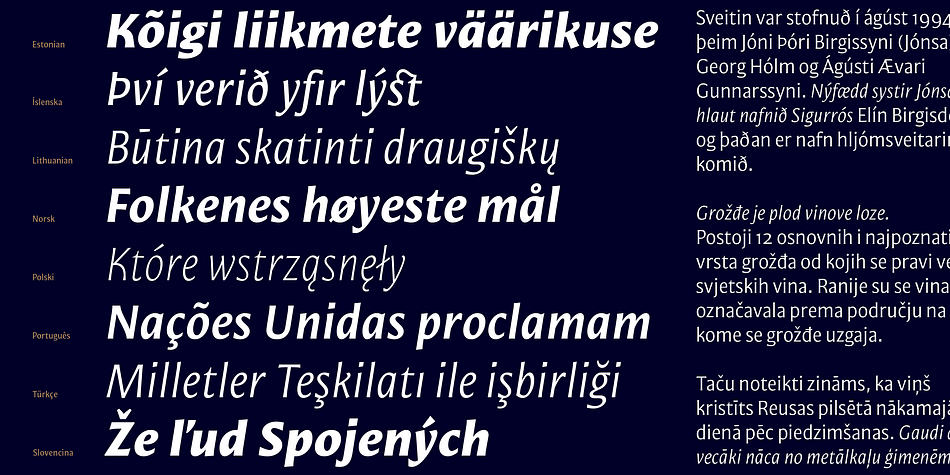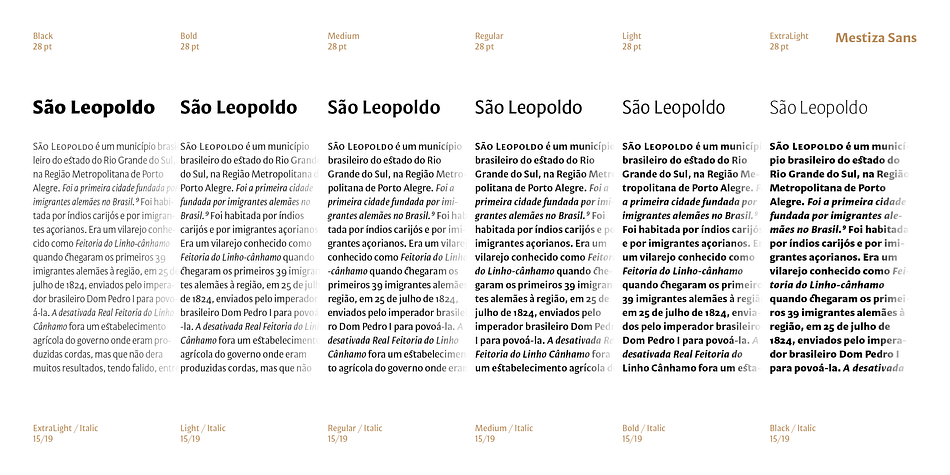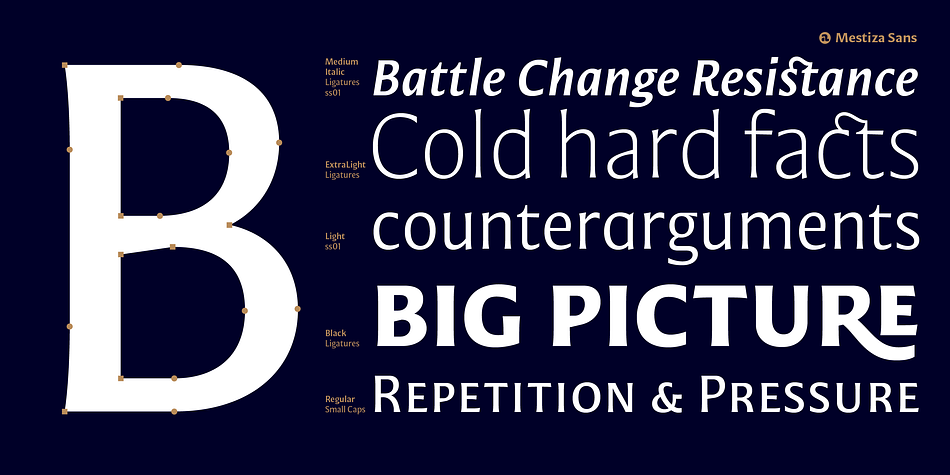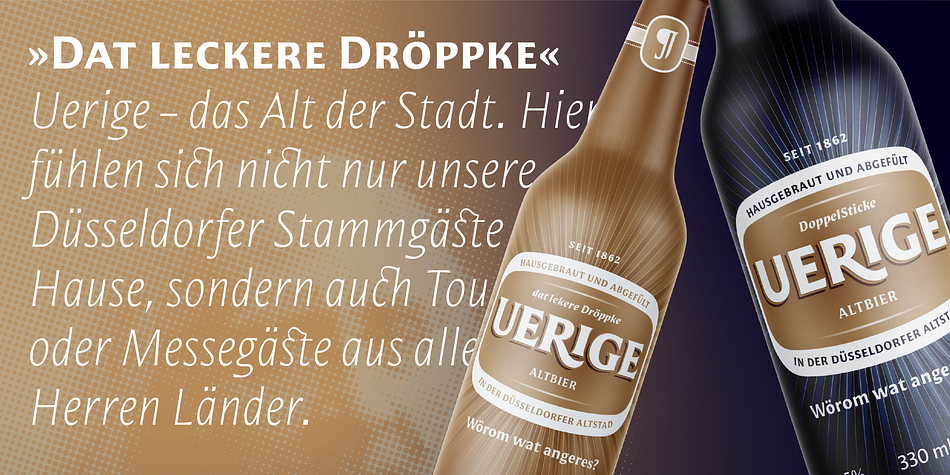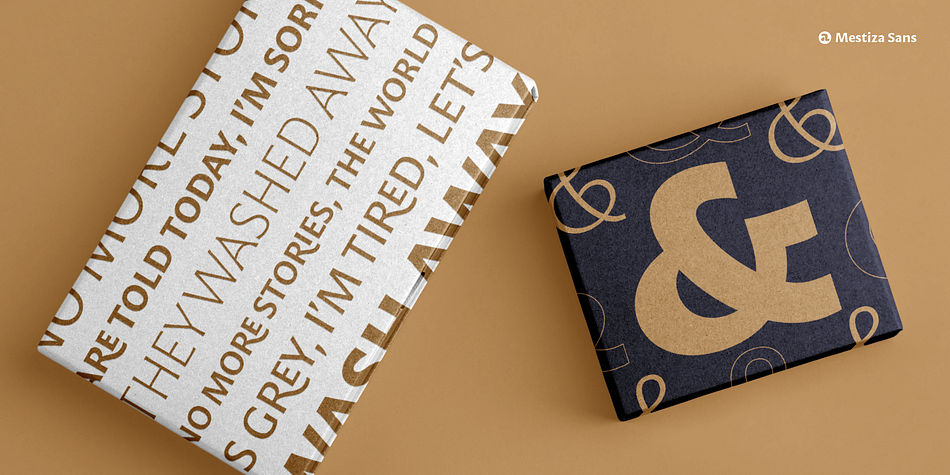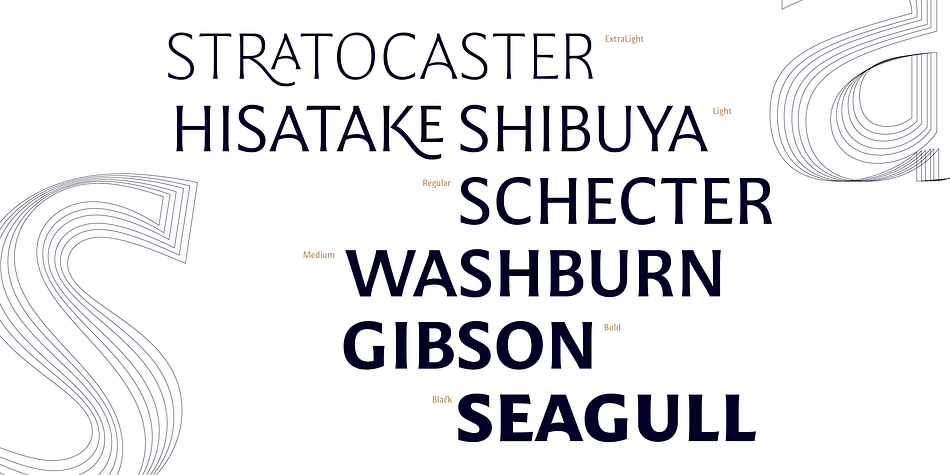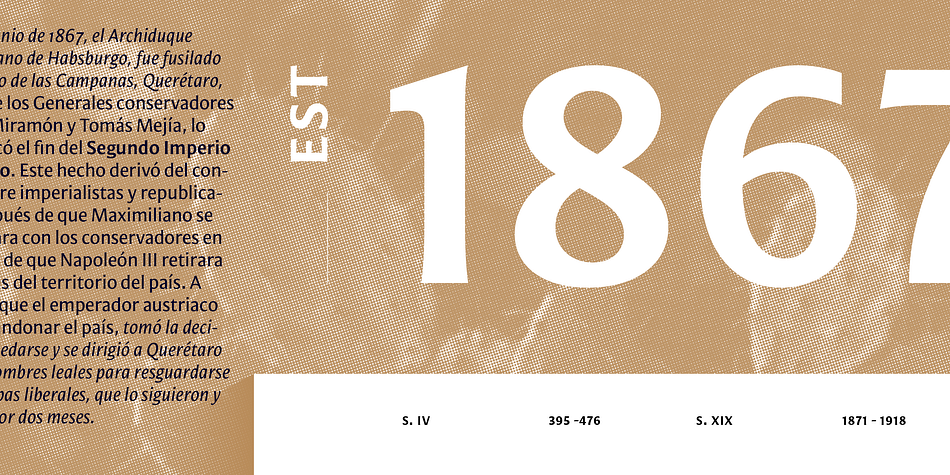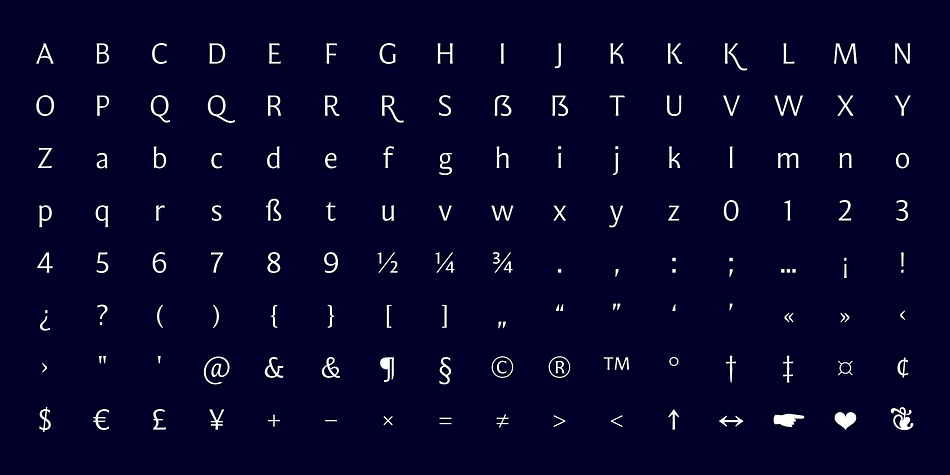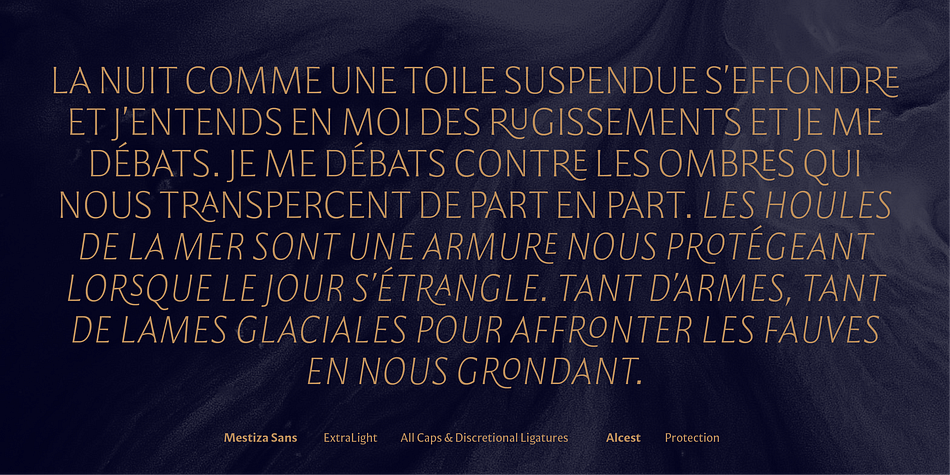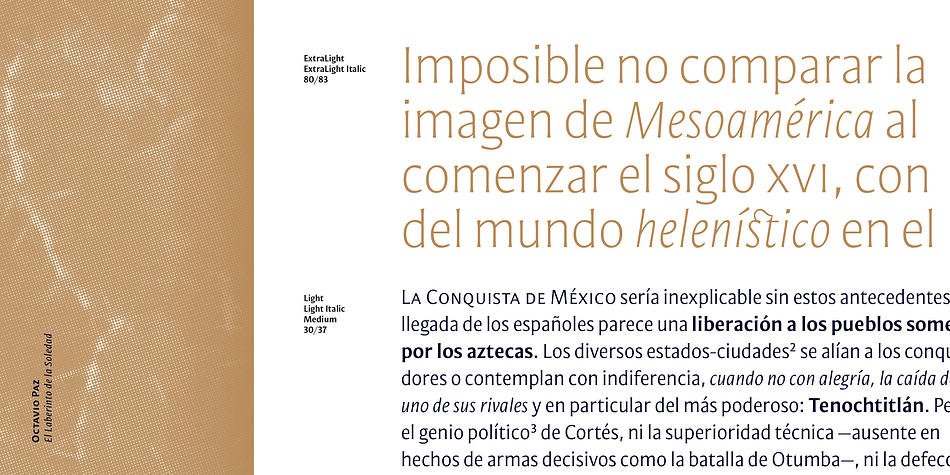
Designed by Antonio Mejía Lechuga, Mestiza Sans is a sans serif font family. This typeface has twelve styles and was published by Antonio Lechuga.
Mestiza Sans is the new family of the Mestiza system, which is the perfect complement to the Serif version, as it reinforces and amplifies the possibilities of use and combination.
It preserves the relics of the serifs discreetly and harmoniously, bringing the artisanal to the contemporary in a mixture that continues to evoke elegance and strength. It’s ideal for Headlines, Branding, and Editorial projects thanks to the fact that it has a set of more than 700 multilingual characters, including Small Caps, Ligatures, some Alternates, Symbols, and six kinds of Numerals, as Lining Figures, Oldstyle, Small Caps, Superiors, Inferiors, and Fractions.
Mestiza has 12 variants, six Roman plus italics, including Small Caps, OldStyle numbers, Superiors, Inferiors, Contextual and Discretional ligatures, Symbols, and some Alternates.